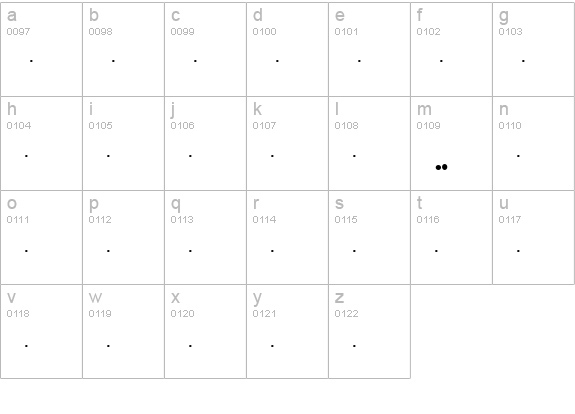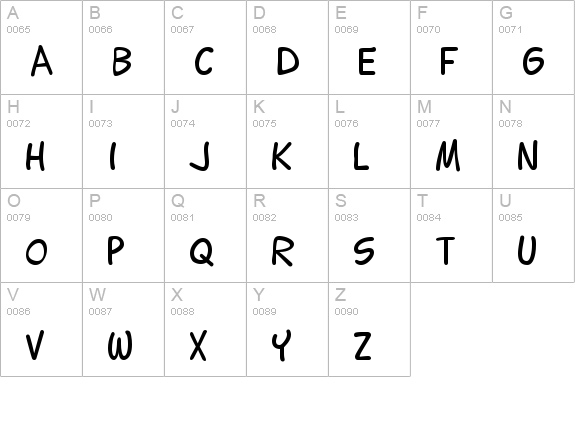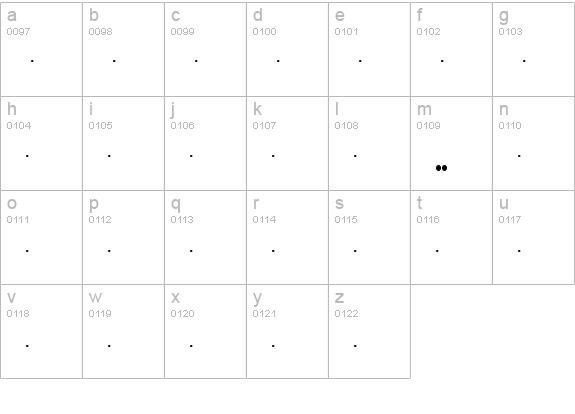
Lettering1 Font Details
Lettering1 is a stunning and versatile font that is sure to make a statement in any design project. With its elegant and sophisticated letterforms, this font is perfect for adding a touch of class and style to your designs. Whether you're designing a logo, creating a poster, or crafting an eye-catching headline, Lettering1 will effortlessly elevate your work to new heights. Its clean lines and balanced proportions make it not only visually appealing but also highly legible, ensuring that your message is effectively conveyed to your audience. But what makes Lettering1 truly exceptional is the fact that it is available for free. That's right, you can download this amazing font at absolutely no cost from FontsMarket.com. This means that you can enjoy all the benefits of this premium font without having to spend a dime. So why wait? Enhance your designs today with the elegance and sophistication of Lettering1. Download it for free now from FontsMarket.com and experience the difference it can make in your creative endeavors.